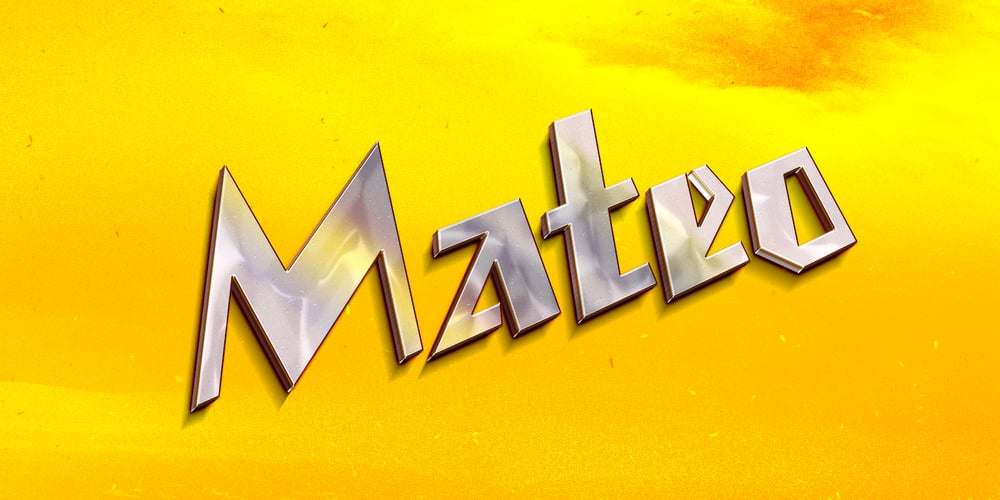
Mateo
Mateo font
Mateo Font Family was designed by Hans-Jürgen Ellenberger and published by Linotype. Mateo contains 3 styles and family package options. Linotype Mateo is part of the Take Type Library, which features the winners of Linotype’s International Digital Type Design Contest from 1994 to 1997. Jürgen Ellenberger included three styles in his font, roman, bold and outline. The characters of Mateo consist exclusively of lines, giving the font an extremely angular look. However, Mateo retains a certain handwritten style somewhat reminiscent of the graffiti left on wooden grade school desks by previous classes. The bold and outline styles have emphasized stroke contrasts but keep the angular, consciously irregular look. The roman style is best for smaller texts and the bold and outlines styles for headlines.